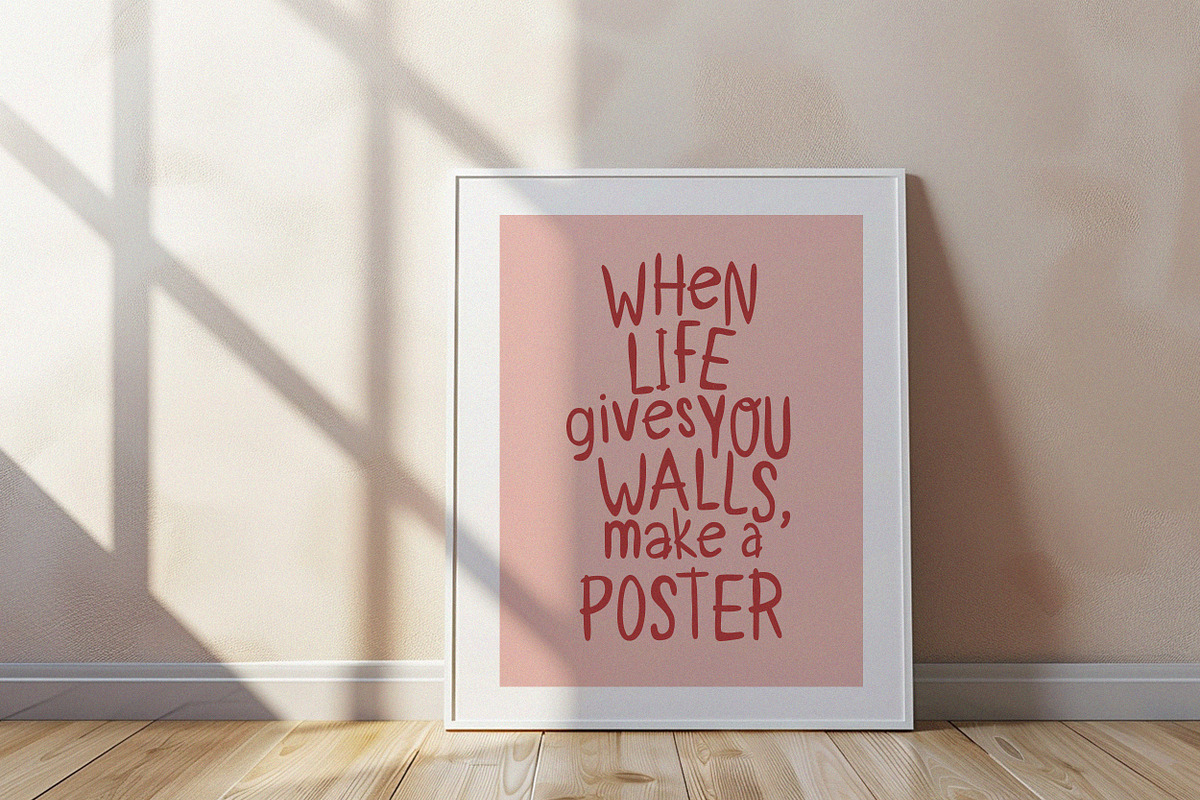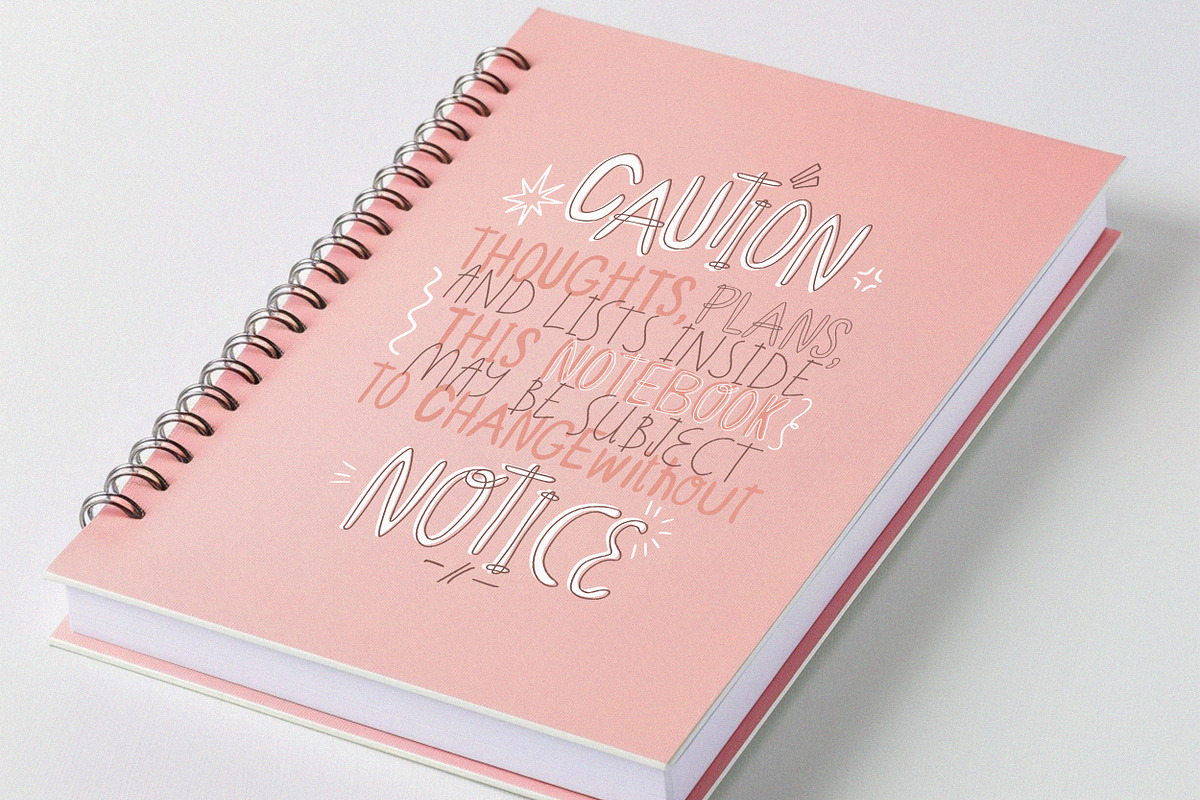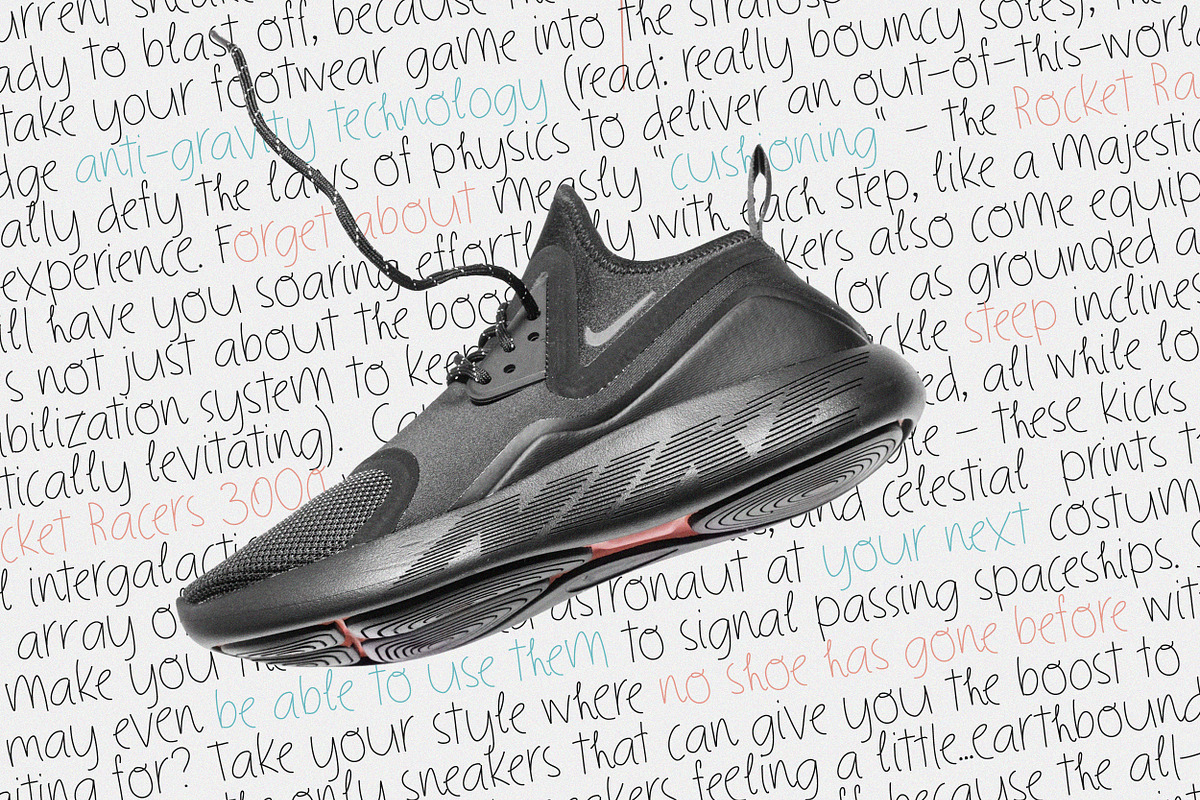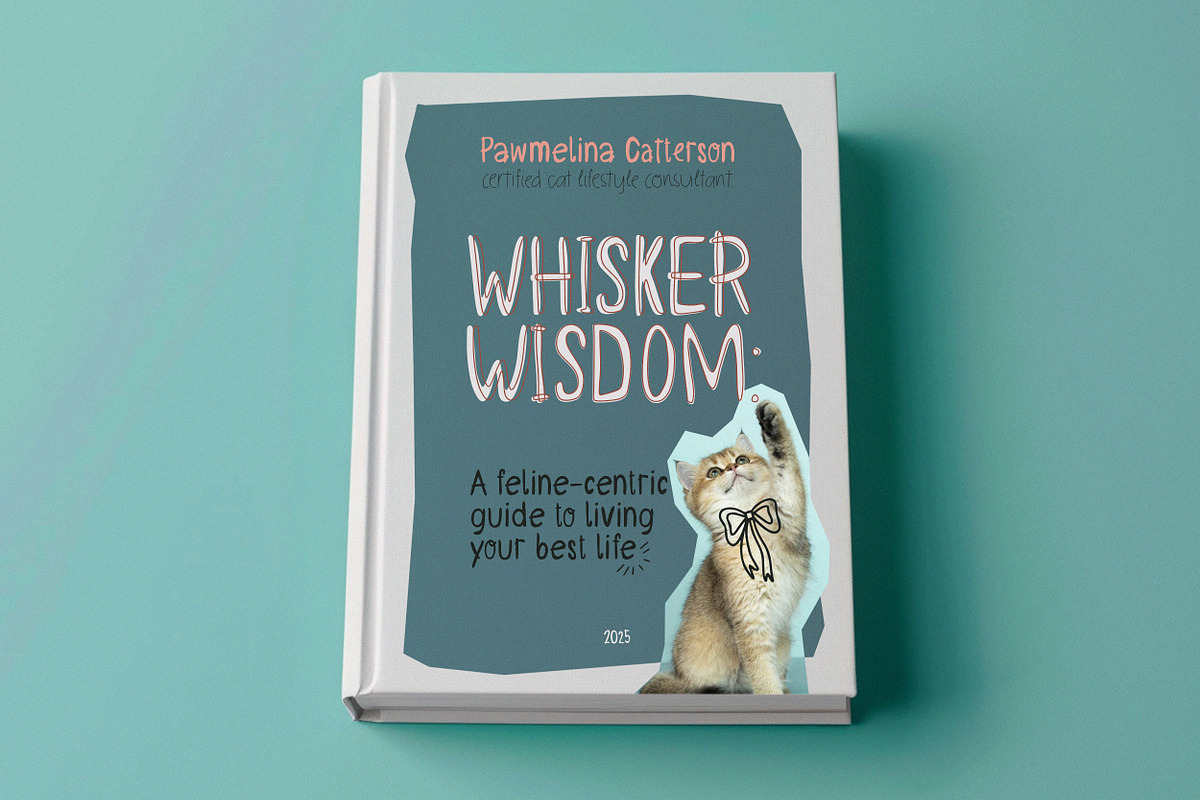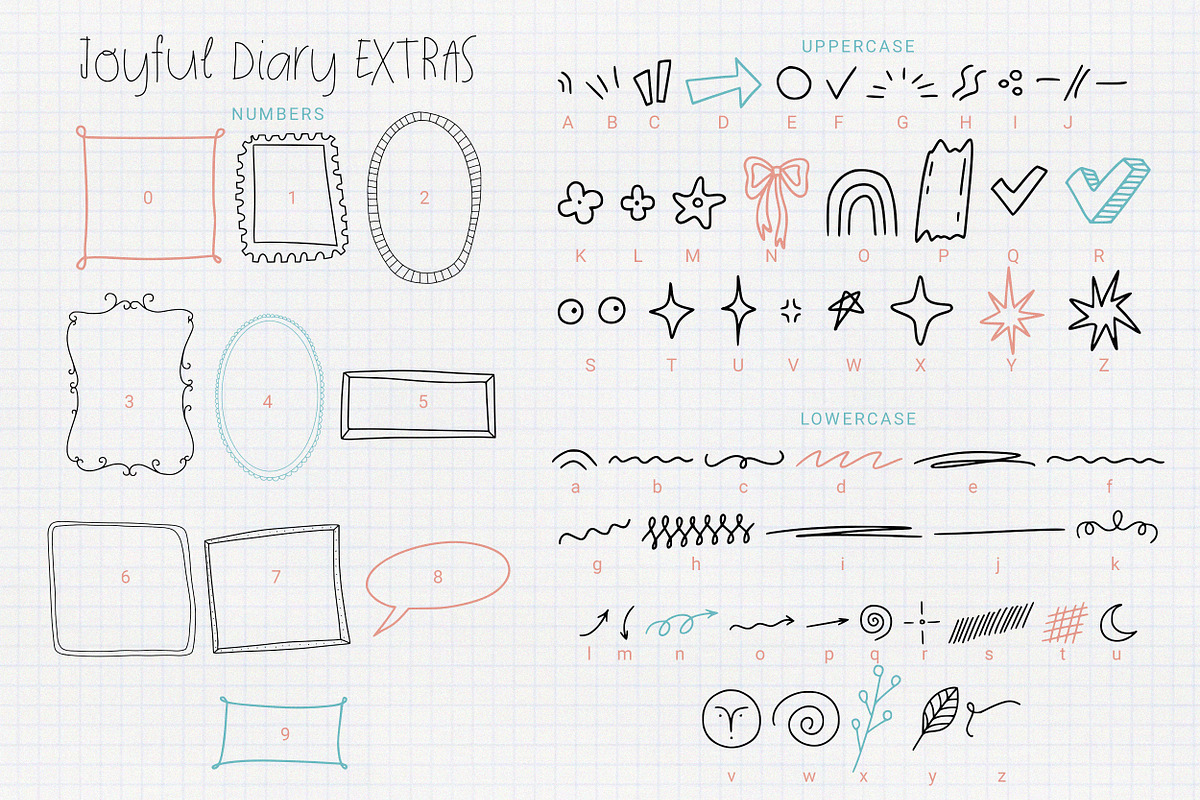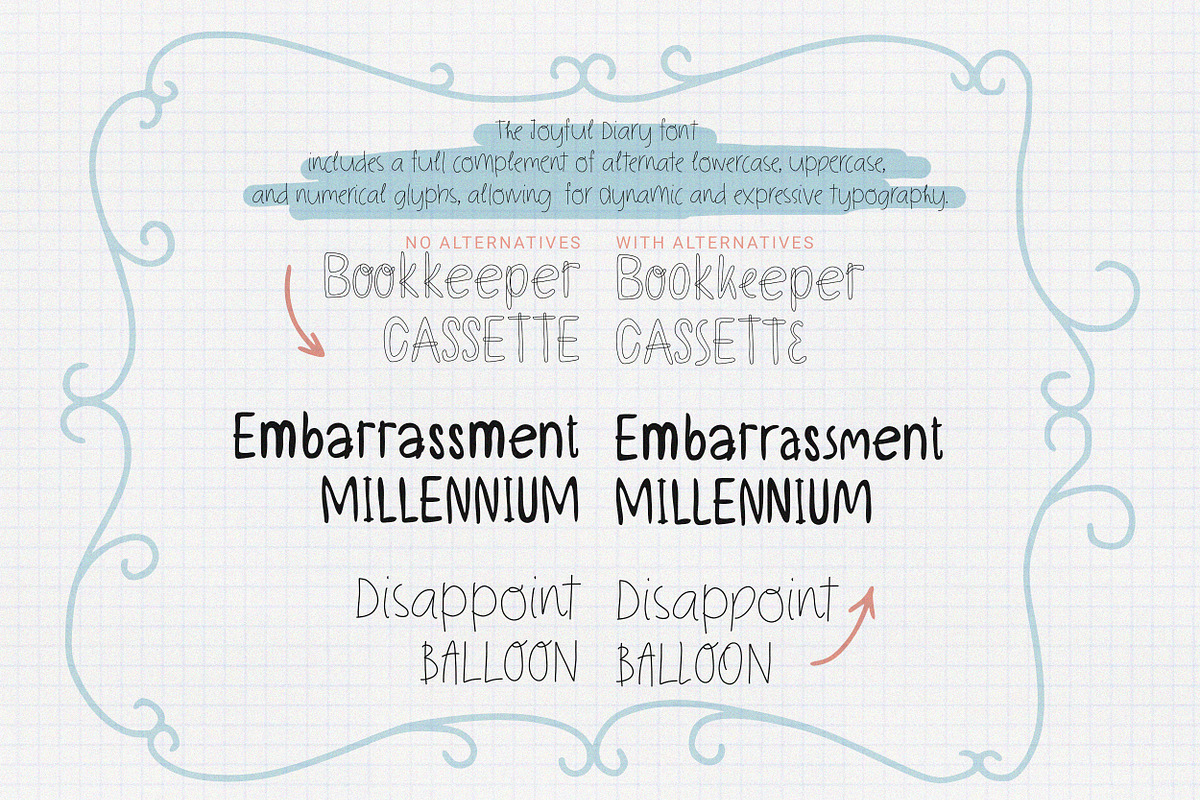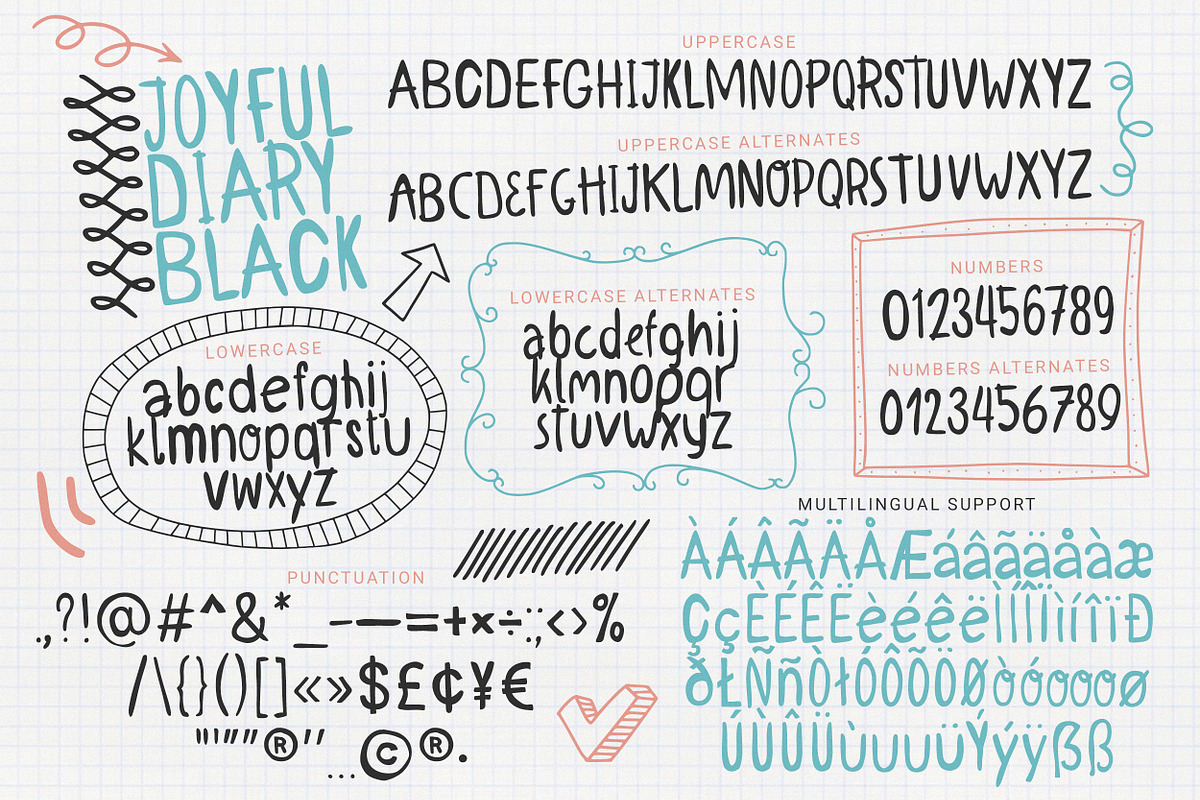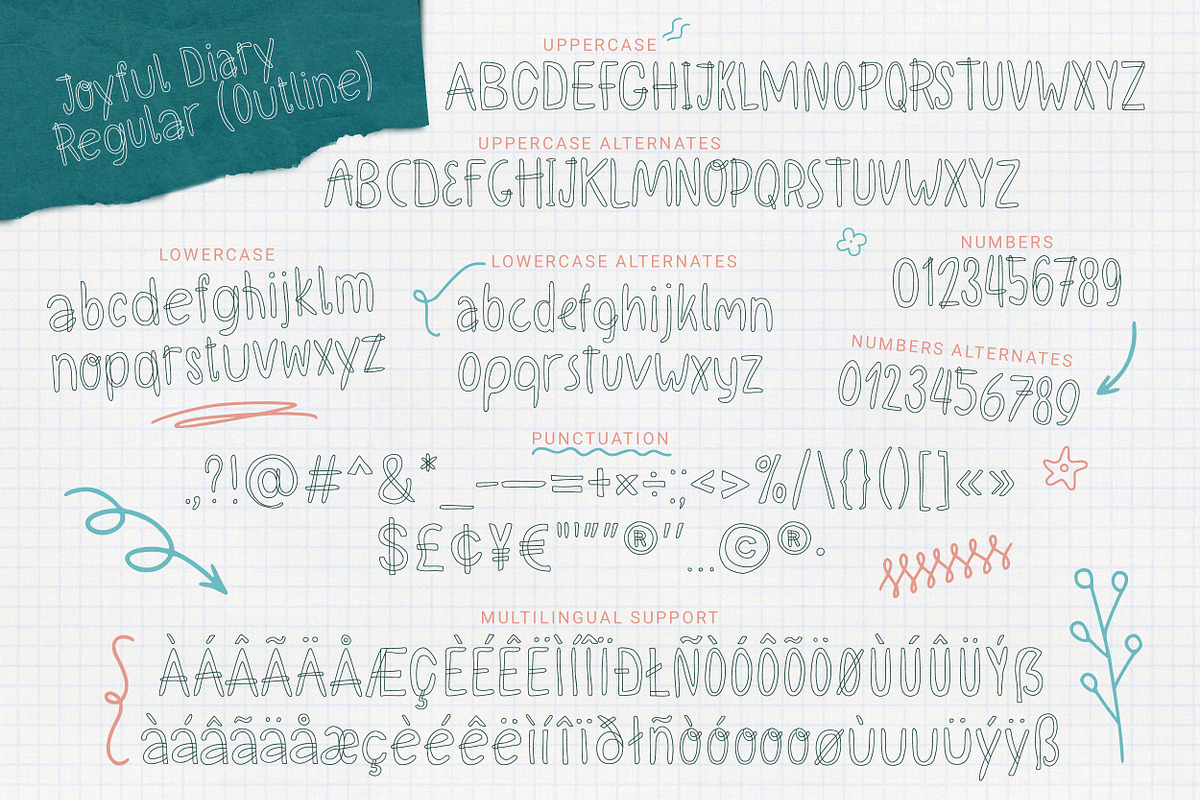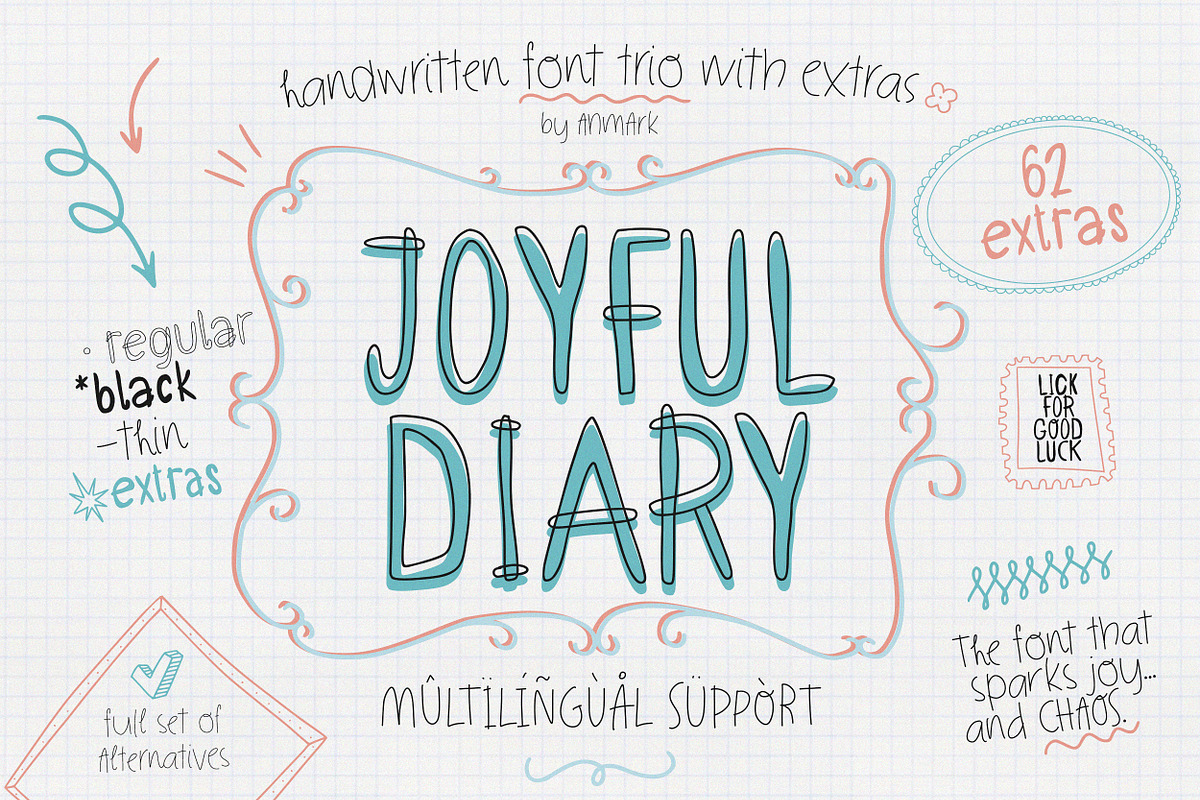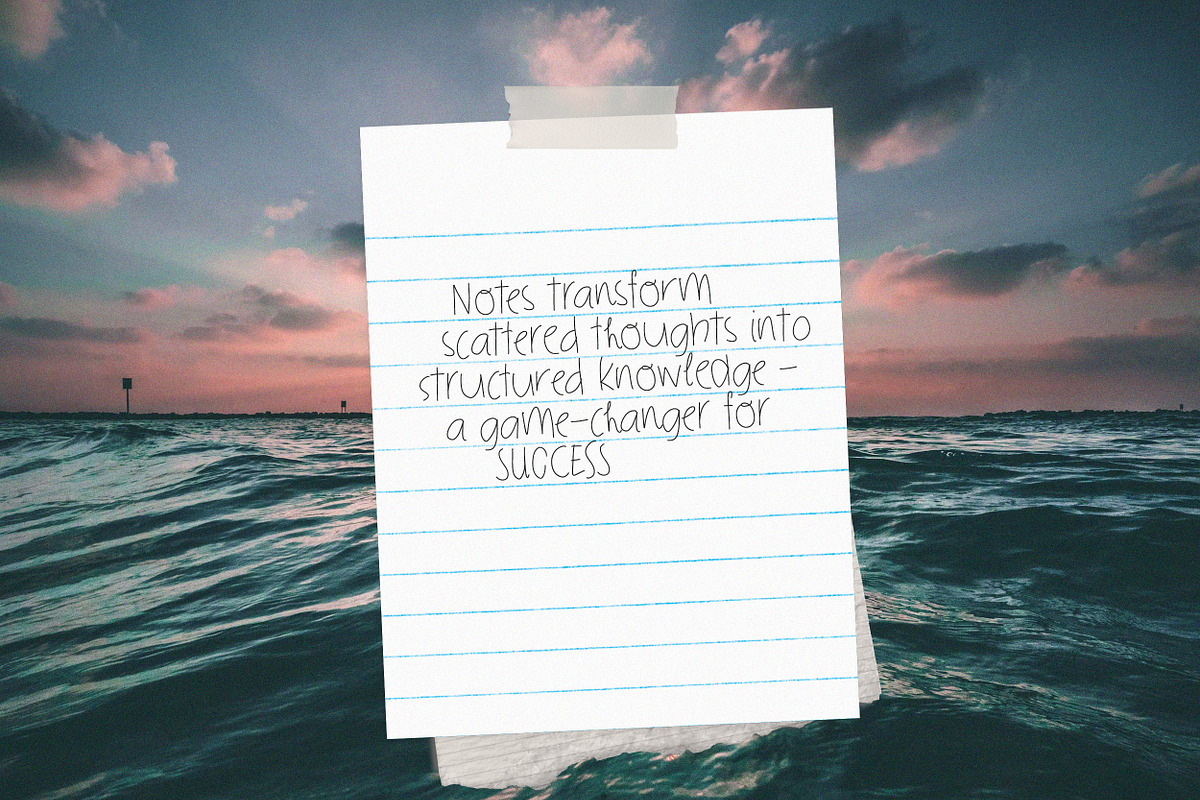
Joyful Diary | Playful Handwriting
Introducing the Joyful Diary Font Family - a collection of 4 delightfully playful typefaces that will have your designs bouncing off the page with pure joy!
First up, Joyful Diary Regular - a charming outline font that's perfect for adding a touch of whimsy to any project. Whether you're crafting cheerful event invitations or sprucing up your daily journal, this contoured cutie will make your words pop with personality.
Next, feast your eyes on Joyful Diary Black - a bolder version that maintains the same bubbly form, but without the outline. This one's a real head-turner, ideal for commanding attention on posters, packaging, and beyond.
For those days when you need to capture a more casual, handwritten vibe, there's Joyful Diary Thin. This lively script mimics the look of quick, carefree note-taking, adding an effortless flourish to your designs.
And lastly, the Joyful Diary Extras font brings a whole menagerie of adorable doodles to the party. Swap out letters and numbers for frames, arrows, and other playful embellishments - it's the perfect finishing touch to make your projects pop with personality.
The Joyful Diary font family features a full suite of alternates for both uppercase and lowercase letters, as well as a complete set of numerals. This allows for a high degree of customization, enabling designers to create uniquely expressive typography that stands out from the crowd.
In addition to its playful personality, the Joyful Diary fonts also boast multilingual capabilities. They seamlessly support a variety of languages, including English, Spanish, French, German, Portuguese, and Italian. This makes the font family an adaptable choice for a wide range of international projects and global audiences.
So whether you're crafting upbeat social posts, whimsical wall art, or charming stationery, the Joyful Diary Font Family has everything you need to spread sunshine and good vibes. Get ready to embrace the playful power of these joyful typefaces!